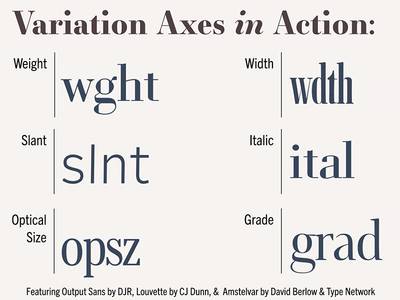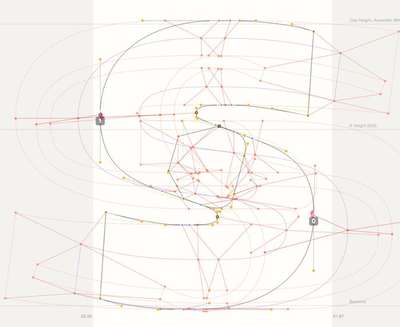
I’ve made a few mentions about variable fonts over the past weeks, and it’s high time I explain myself—and them—because they are really remarkable. So remarkable in fact that they’re just about the only thing I’ve been talking about at conferences since September of 2016 when they were introduced. In truth, I think they are the most significant development for design on the web since the advent of responsive design. A bold claim, but one that I feel confident history will bear out.
Let me explain
For as long as we’ve the ability to use linked or embedded fonts on the web, we have had to do that by including a separate font file for every weight, variant, or width that we want to use. So for typical websites, that means a routine collection of regular, italic, bold, and bold italic font files for whatever typeface we choose for body copy, and sometimes another one or two for headings or display purposes. These design decisions are often guided as much by overall user experience (UX) and performance considerations as they are typographic ones, since the more fonts you load, the more impact it can have on download times, data use, and delays in final page rendering so the visitor can actually see your site. As I wrote a couple weeks back, this has lead to a whole canon of advice on what is ‘good’ typography that is questionable at best—and in many cases simply false.
Well, at ATypI Warsaw in September 2016, that changed. Or at least that was the beginning. That’s when representatives from Adobe, Apple, Google, and Microsoft jointly announced the introduction of an evolution of the OpenType Specification called ‘Variations’—or what have become known as Variable Fonts. The OpenType format is what’s used to create cross-platform font files for use on desktop devices running MacOS, Windows, etc., and when creating WOFF or WOFF2 versions from them, you get a font file usable on the web. What’s so different about this evolution of the format is that, as John Hudson put it, you get 'a single font file that acts as many.’
Examples of font variation axes like width, weight, and slant
Showcasing the five registered axes (weight, width, slant, italic, optical size) and the custom axis of grade
So what does that really mean?
Consider that if you were to use every weight of IBM Plex Sans in regular and italics, both the full width and the condensed, you would have to load 32 files. Leveraging the best compression (WOFF2), you would still be loading over 960KB of font data. If you try out the newly released variable version you could load only 2 files (regular and italic) but get the full weight range and width—all for only about 230KB! And that’s for the complete character set supporting over 40 languages. Subset to a typical Latin 1 (or even Latin 1 Extended) it would be even smaller.
The secret is that instead of storing all of those complete outlines, the format stores only the regular outline of the glyphs, and the ‘deltas’ (or differences) between the points defining that outline and where they would shift to in order to represent a thicker or thinner one. That way it’s only that one outline plus a bunch of other points and offsets, creating a far more efficient overall format. I’m simplifying that a bit of course, but in generally that’s a pretty accurate summation.
A letter S diagrammed showing all the points for various weights
A regular outline and all the beziér points for the different widths and weights, shown here in Superpolator. Courtesy of Erik Van Blokland
Even if it ends up being the same or even slightly more font data than you might typically load, instead of being constrained to only two weights plus italics in a single width, you can make use of the entire range of weights to fine tune your headings based on font size. You can even tailor the width of the font based on usage and screen size as well.
I’ll talk more about why you might want to do that, but suffice to say that having the full range of options available can be totally transformative for your design voice.
Setting the stage
There are a few changes that need to be made to your @font-face declaration (I covered the basics of that a few weeks back), but they’re pretty modest. One nice change is with variable fonts you no longer need to worry about any other format than WOFF2. TTF works as well, but the file size compression and compatibility gains with WOFF2 are so great that there’s no reason not to use it. Not all font providers have taken that step yet, so if you end up getting a TTF version, it’s worth asking for them to provide WOFF2 instead.
Here’s an example:
There are a few things to note in the code above.
Note: I’ve omitted italics here in the event that it’s a variable font with italics in the same file, as there is still a bit of ambiguity around the syntax and implementation. An examples of two variable font files for roman and italics, grouped by family name, is shown below.